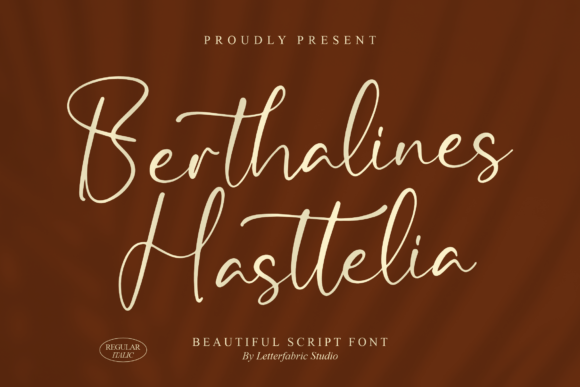
The Quest for the Perfect Script Font: Discovering Berthalines Hasttelia
I’ll never forget the time I was working on a branding project for a boutique coffee shop. My client wanted a logo that exuded elegance and sophistication, but I was struggling to find the right font. I scoured the internet, tried out countless fonts, but nothing seemed quite right. That was until I stumbled upon Berthalines Hasttelia – a beautiful script font that instantly captured the essence of the brand.
An Honest Review of Berthalines Hasttelia
• ✨ Elegant and sophisticated: Berthalines Hasttelia has a luxurious feel that’s perfect for high-end branding projects.
• ✅ Highly versatile: This font can be used for a wide range of projects, from logos and packaging to posters and greeting cards.
• 💫 Beautiful swashes and flourishes: The font comes with a range of swashes and flourishes that add an extra touch of elegance to your designs.
• 📚 Extensive character set: Berthalines Hasttelia has a large character set that includes support for multiple languages.
While Berthalines Hasttelia is an amazing font, there are a few things to keep in mind:
• ⚠️ Limited use for body text: Due to its script nature, Berthalines Hasttelia is best used for headlines and titles rather than body text.
• 🤔 May not be suitable for very small sizes: The font’s intricate details can get lost at very small sizes, so it’s best used at larger sizes.
The Story Behind Berthalines Hasttelia
Berthalines Hasttelia was designed by a talented type designer who’s passionate about creating beautiful, elegant fonts. The font is named after the designer’s grandmother, Berthaline, who was known for her love of calligraphy and beautiful handwriting. The font’s intricate details and swashes are inspired by traditional calligraphy and are designed to add a touch of elegance to any design.
Author Letterfabric
Q: What is Berthalines Hasttelia?
A: Berthalines Hasttelia is a beautiful script font suitable for a wide range of design projects, from logos and branding to packaging and posters.
Q: Is Berthalines Hasttelia suitable for body text?
A: No, Berthalines Hasttelia is best used for headlines and titles rather than body text due to its script nature.
Q: Does Berthalines Hasttelia come with a range of swashes and flourishes?
A: Yes, Berthalines Hasttelia comes with a range of swashes and flourishes that add an extra touch of elegance to your designs.